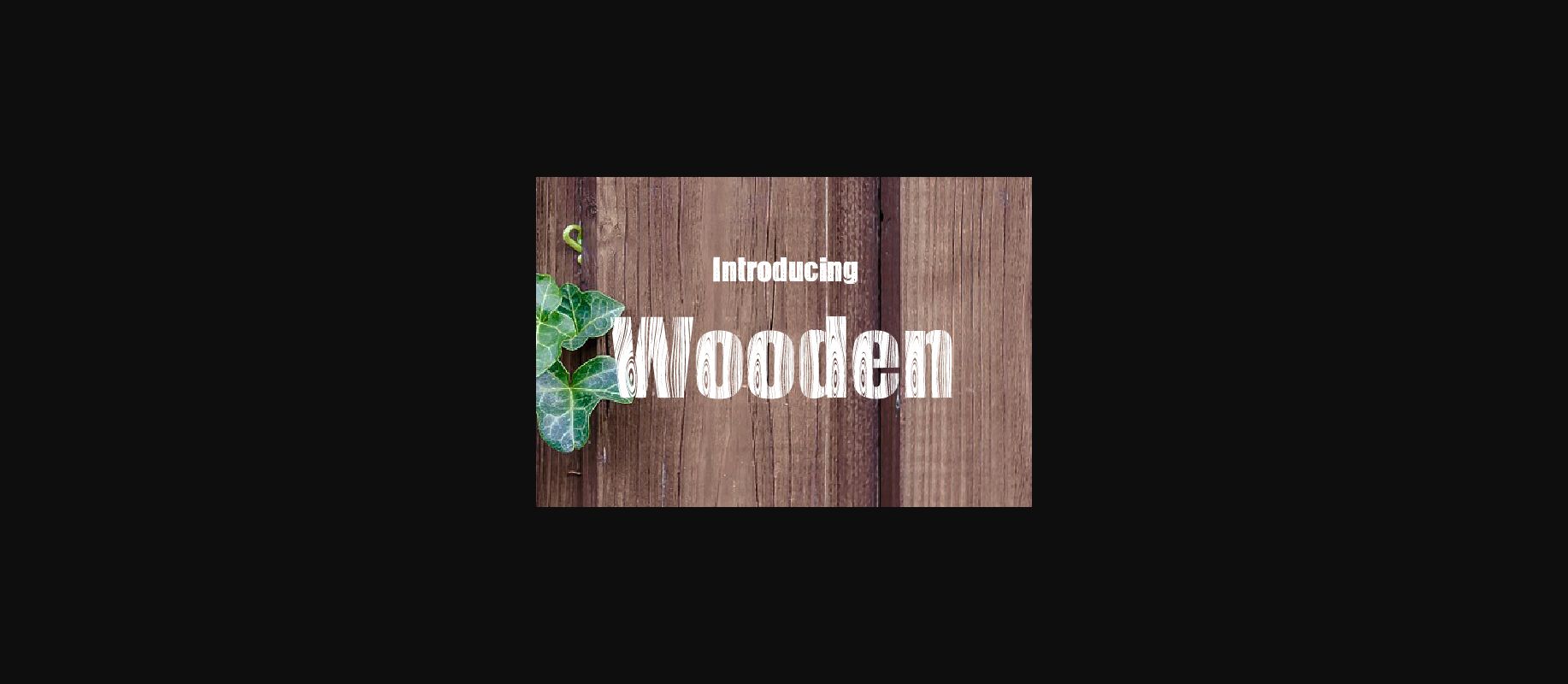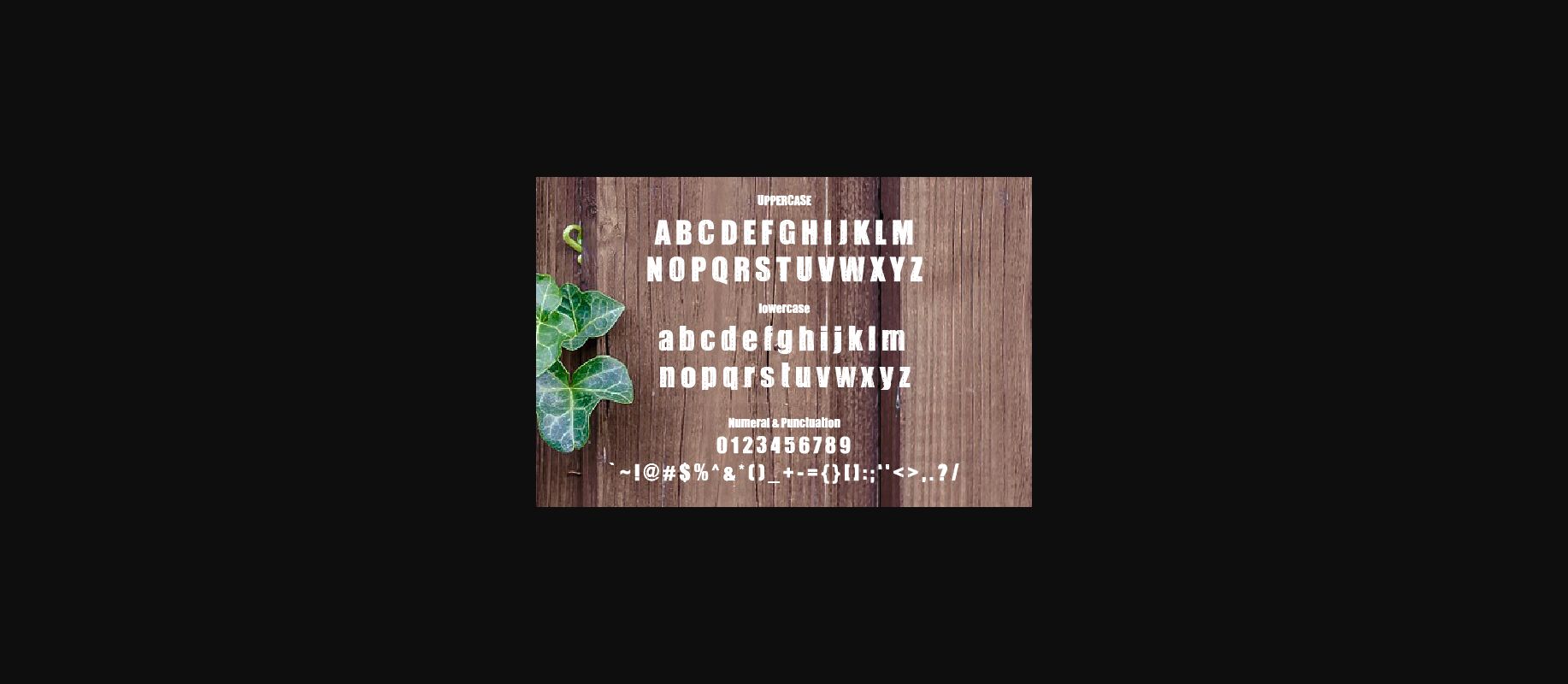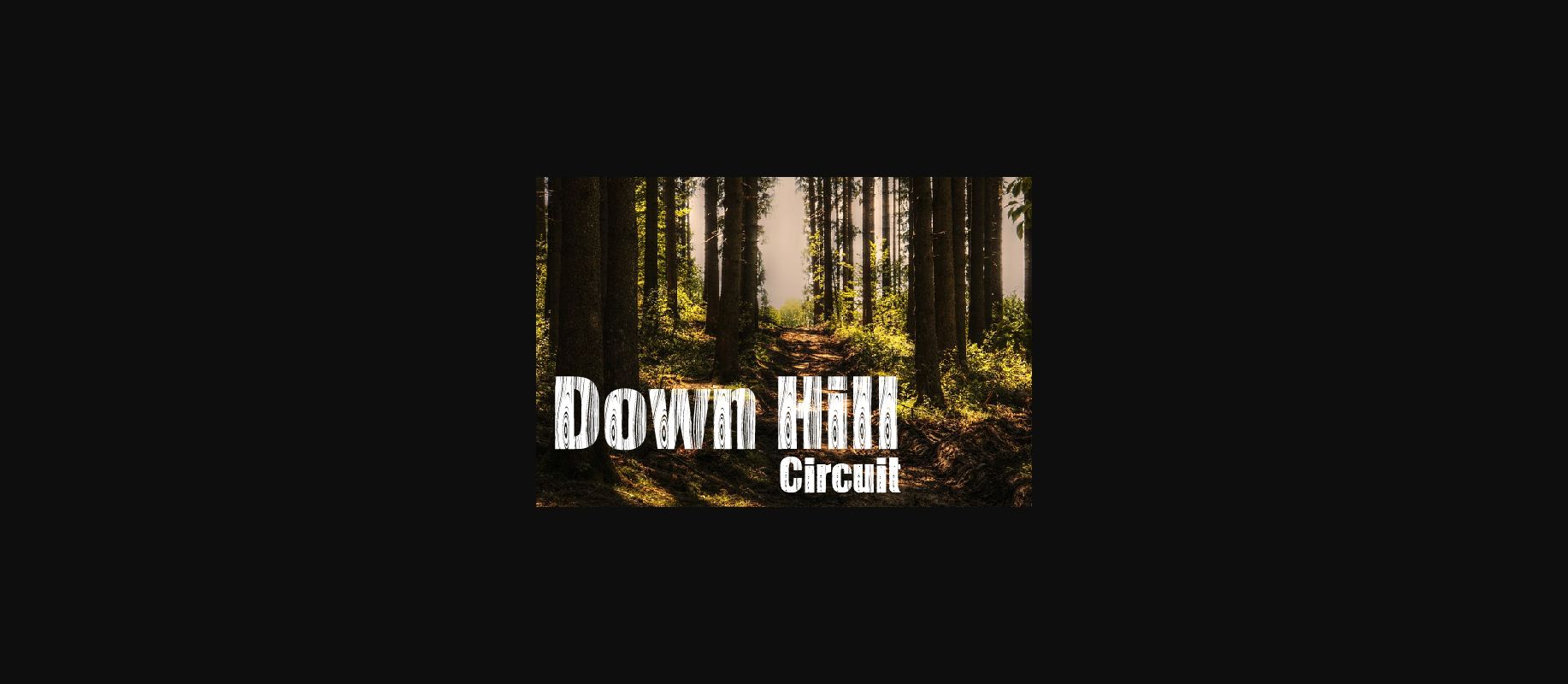
Wooden Font
About Wooden Font
The Wooden is a beautiful decorative typeface. Its striking characters have a year-round wooden motif which will add an unique touch to your designs.
It’s perfect for name cards, posters, logos, magazines, covers, banners, t-shirts and headers.